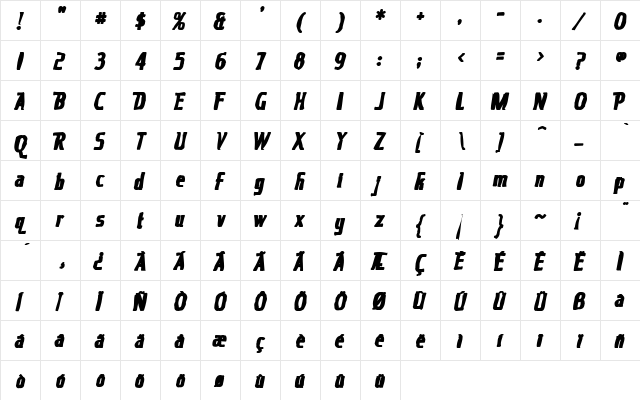
King Richard Ink Regular
Design Context for King Richard Ink Typeface
King Richard Ink offers clean, dependable letterforms without strong stylistic allegiance, making it a practical choice for designers who need flexibility.